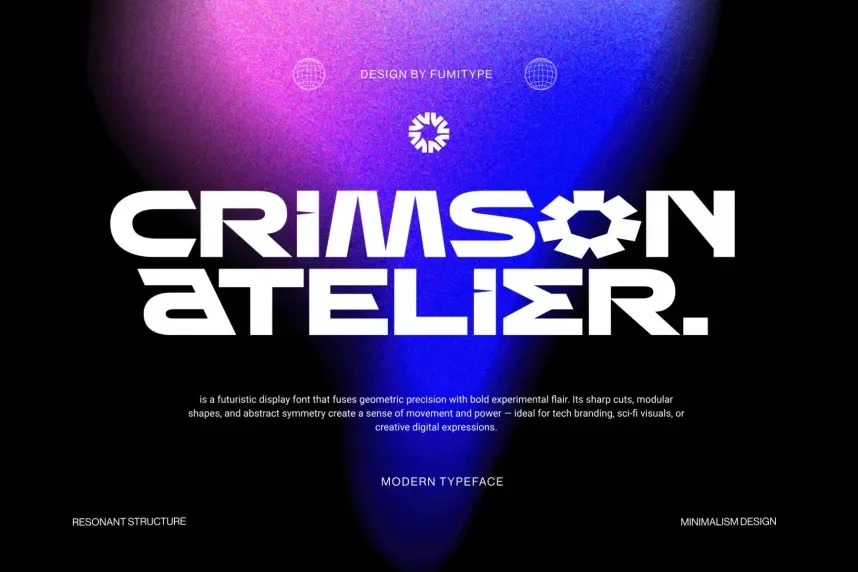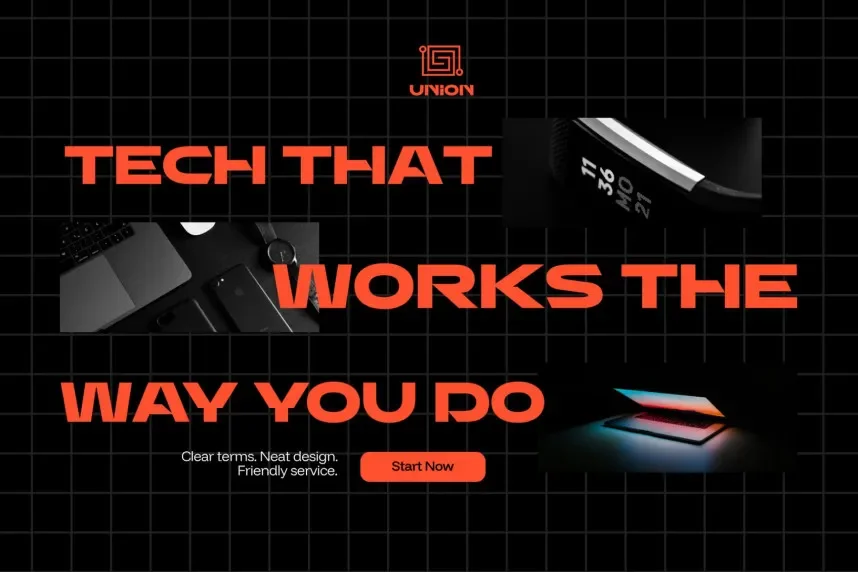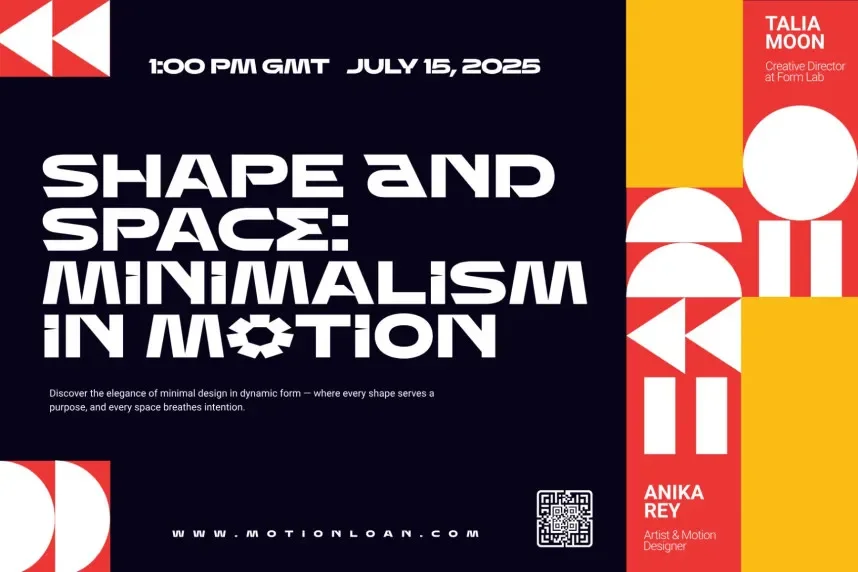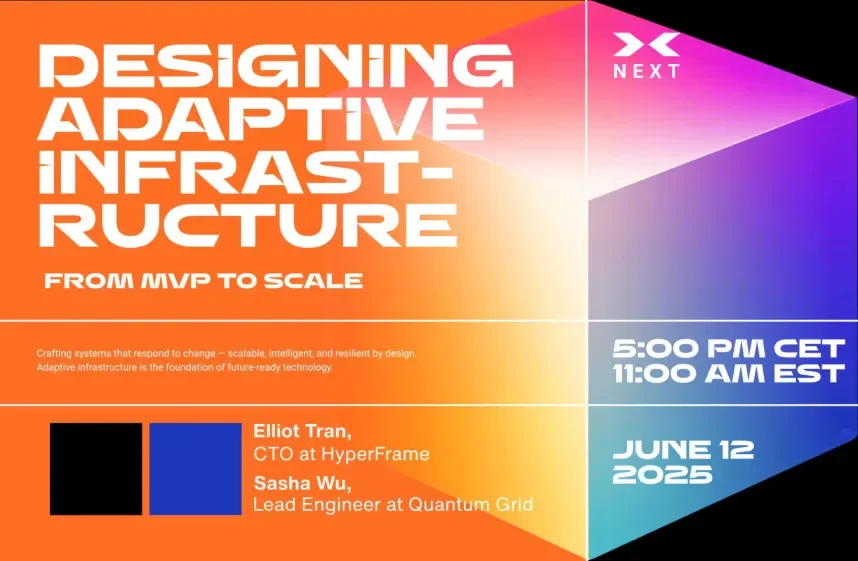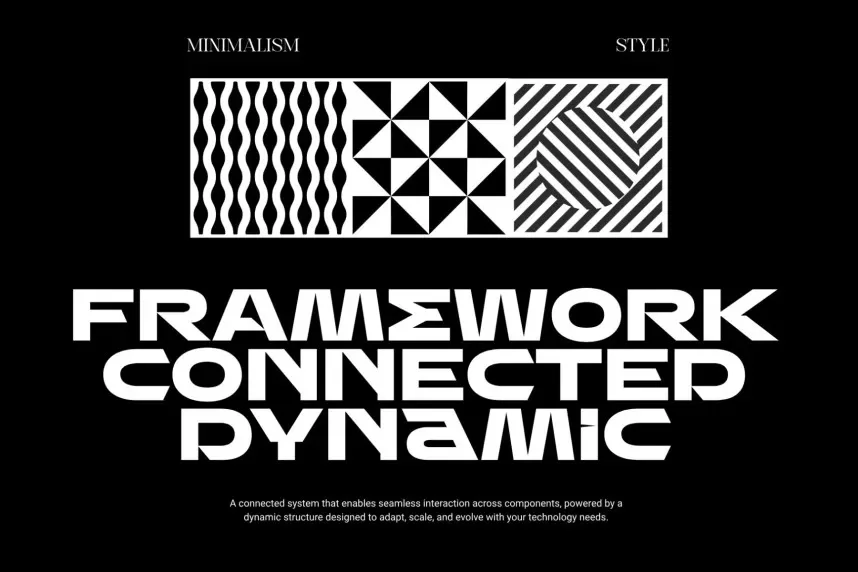
Crimson Atelier Font solves readability and elegance challenges in handwritten-style typography, maintaining clarity in logos and invitations while offering fluid letterforms.
Crimson Atelier is a script font with moderate stroke contrast, connected letters, and subtle swashes. The flowing design ensures a natural handwritten feel without sacrificing legibility.